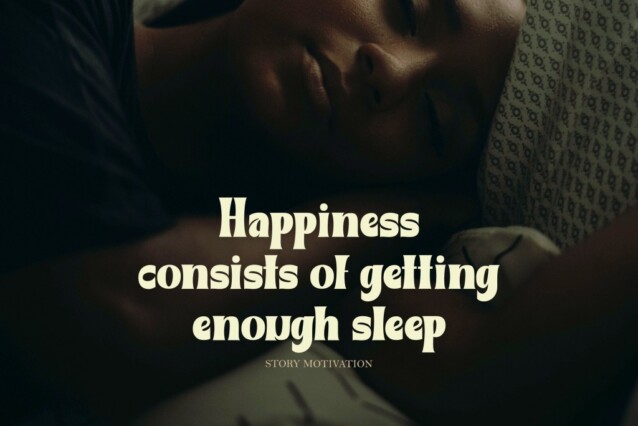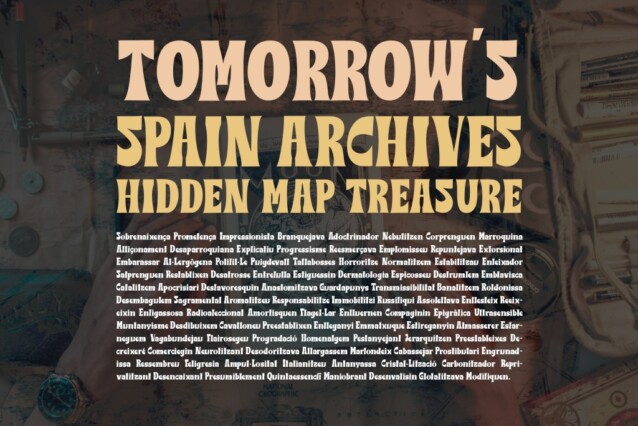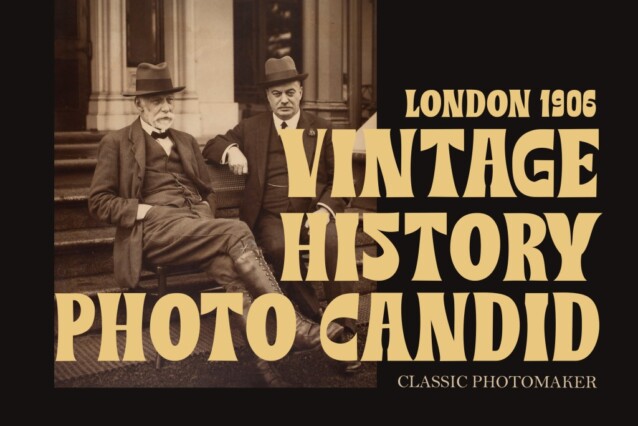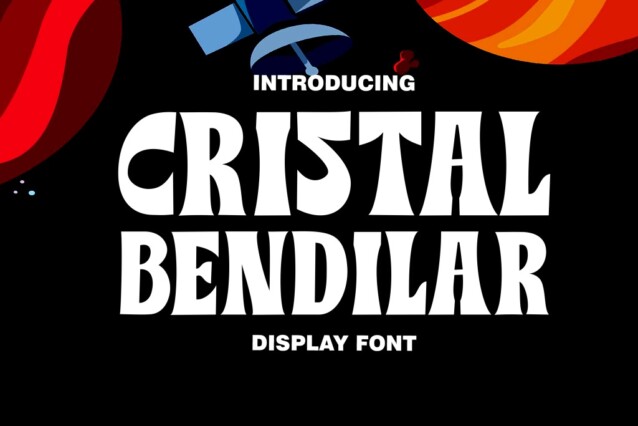
Cristal Bendilar Font is a contemporary display typeface, special designed for printing and advertising. It’s basically Sans with a touch of serif to each letter. A Simplicity yet very legible with various widths and weights that you can explore, combine, create and help you design things.
Cristal Bendilar